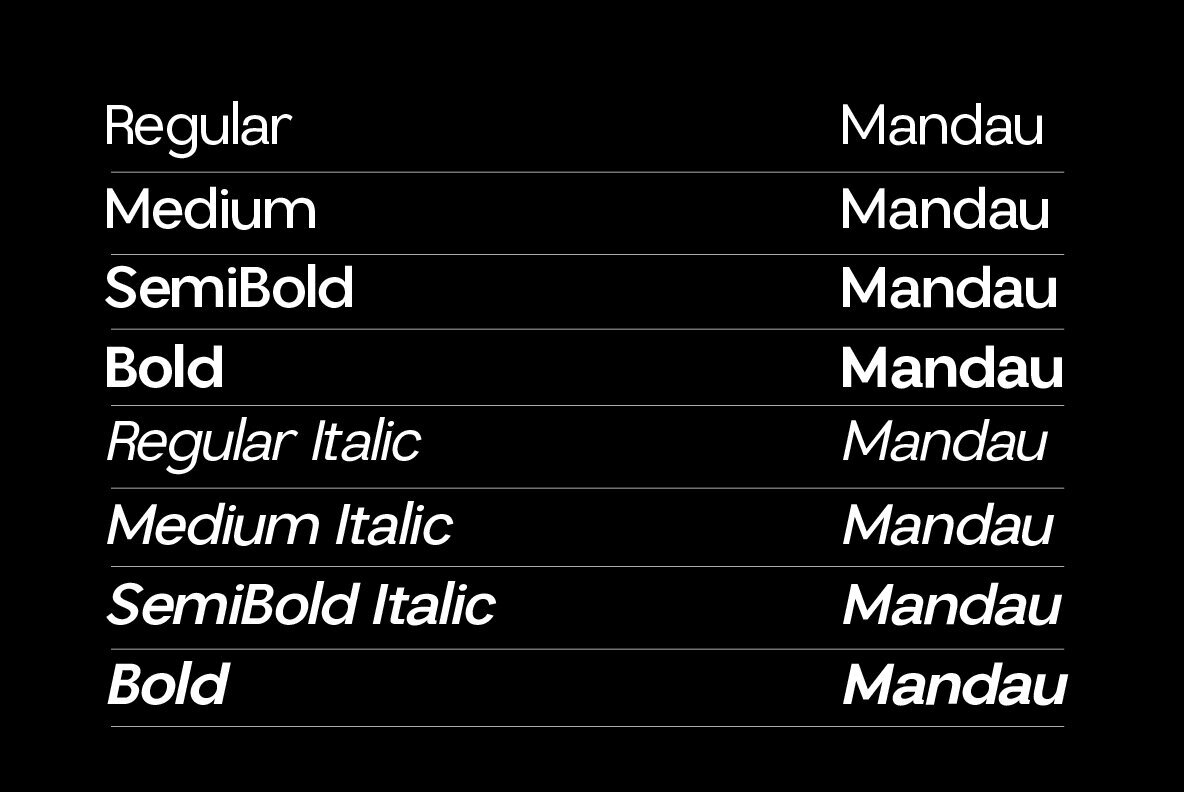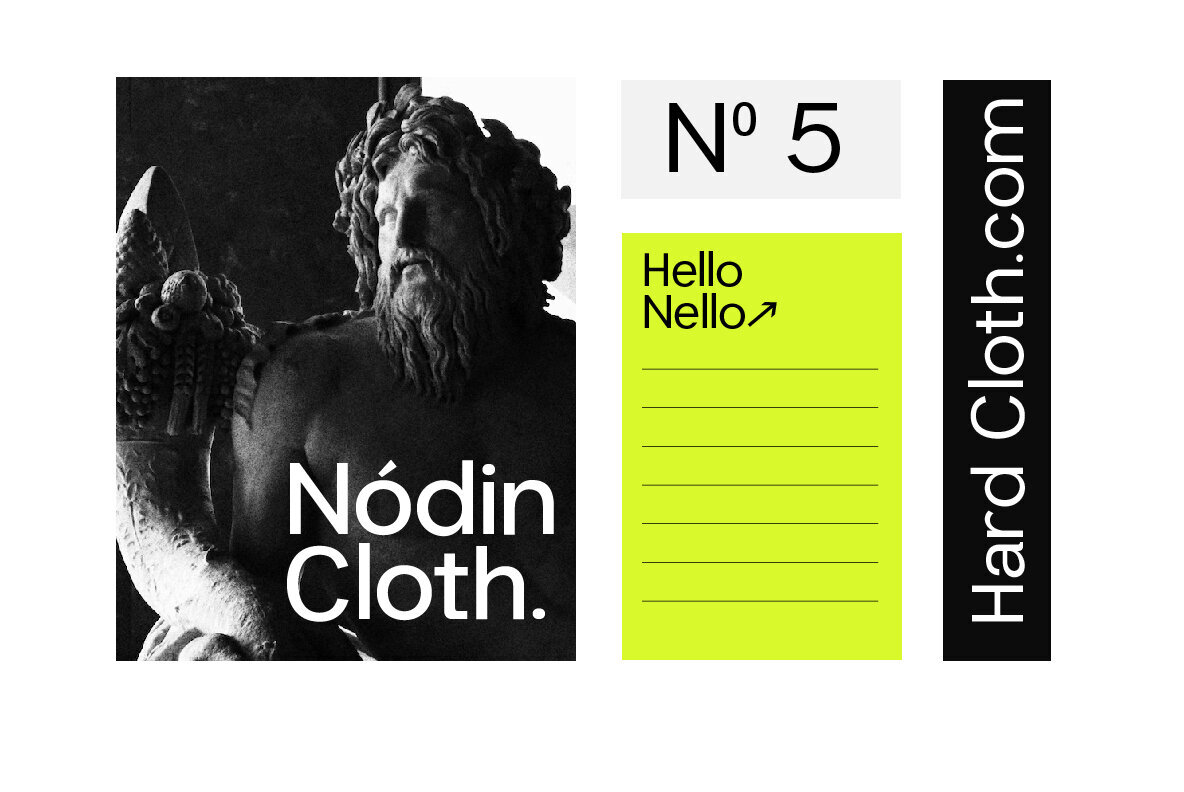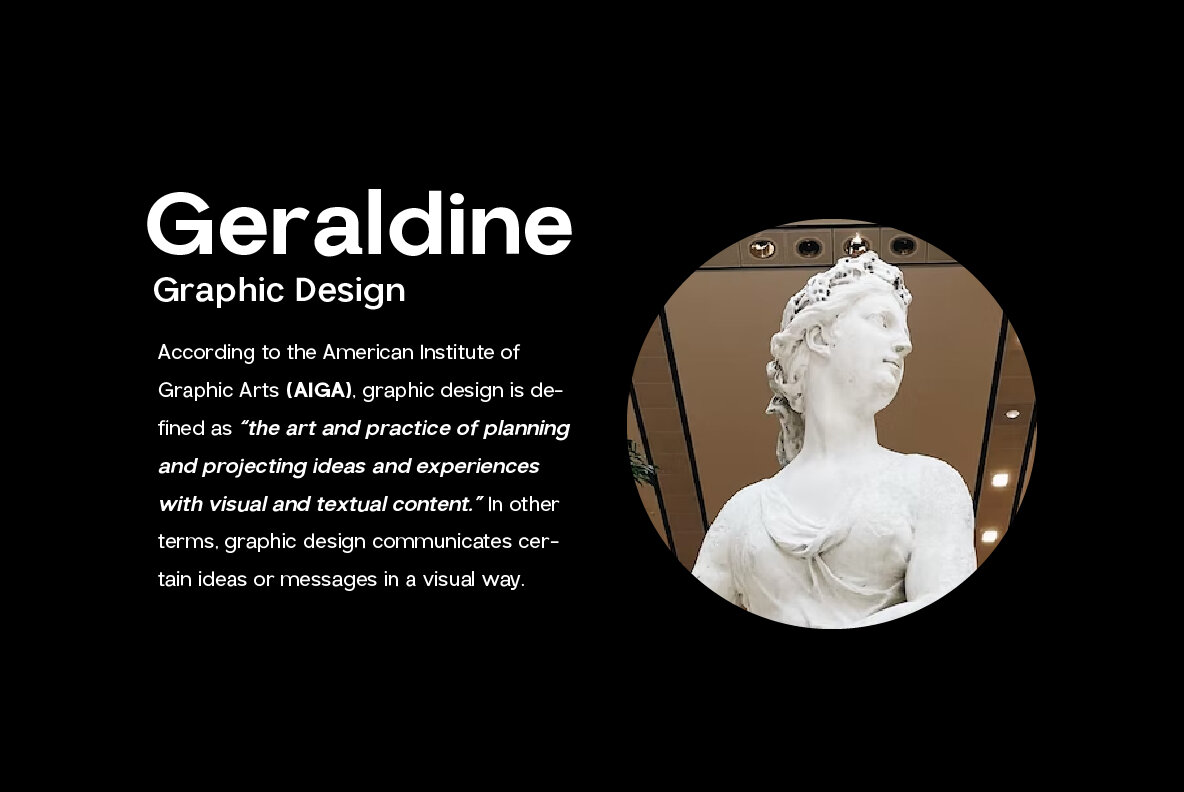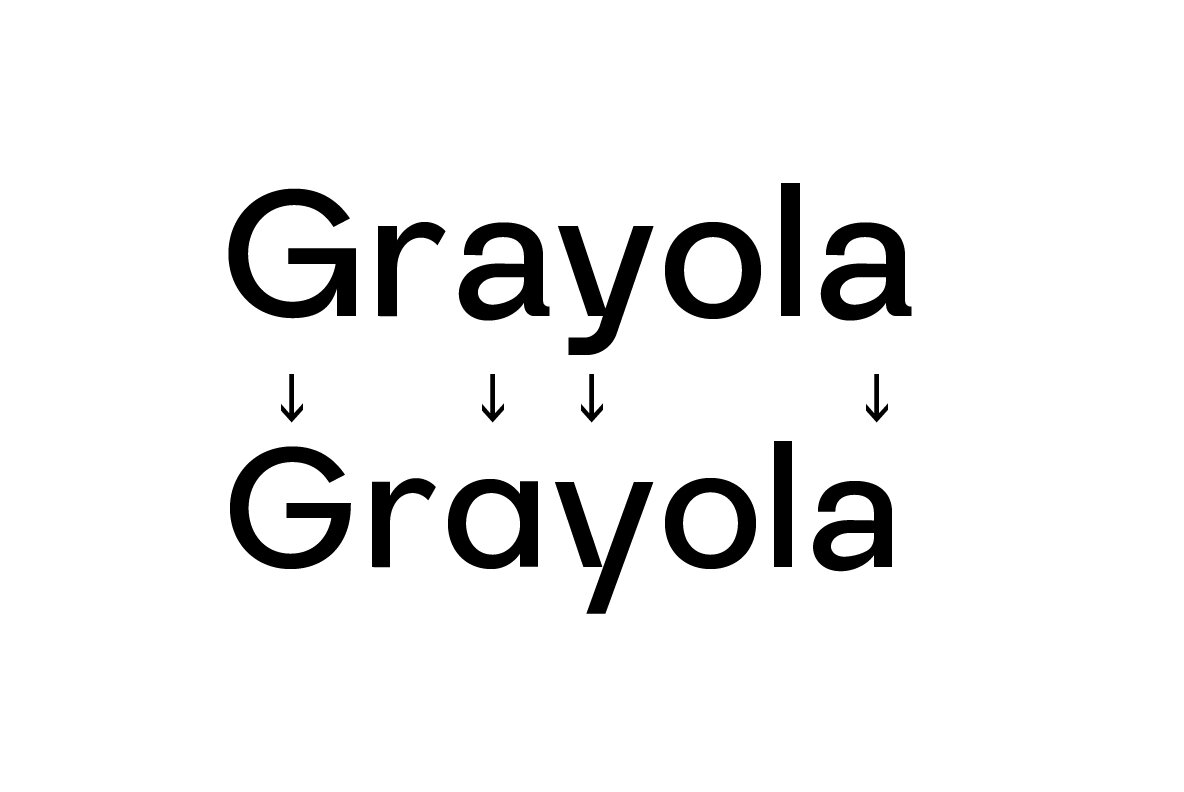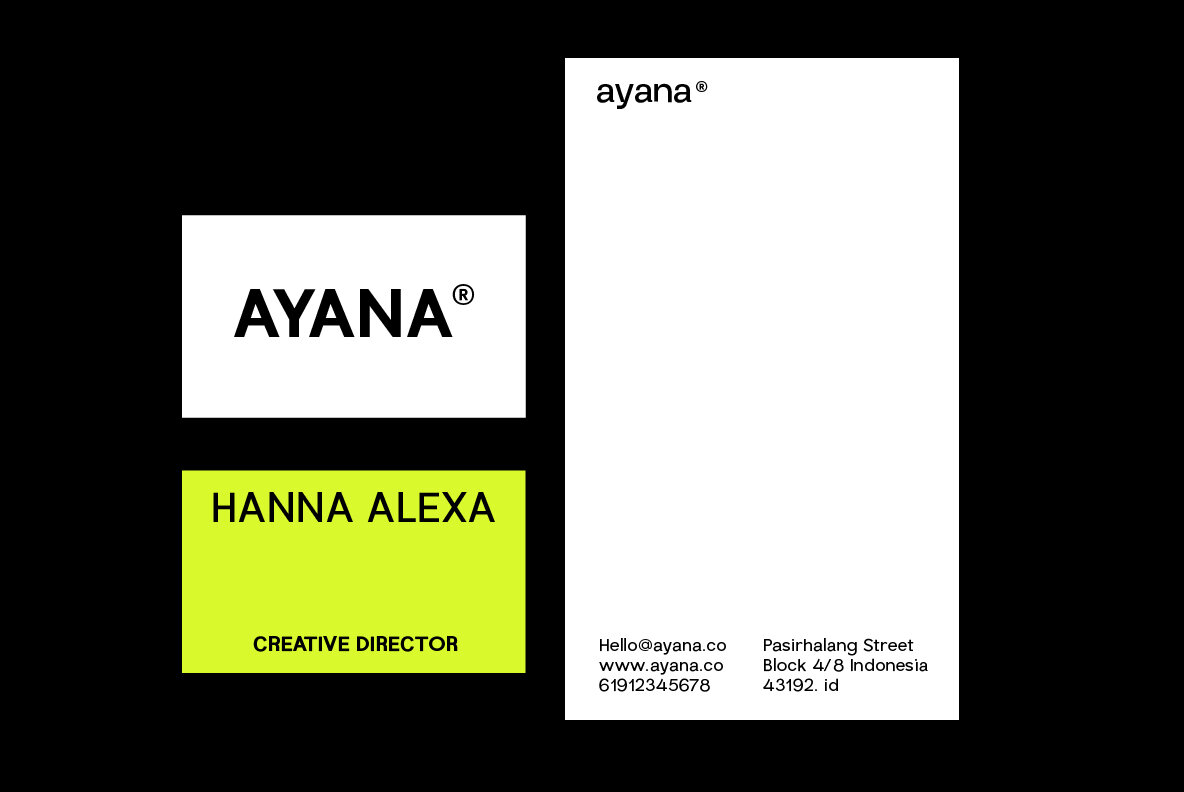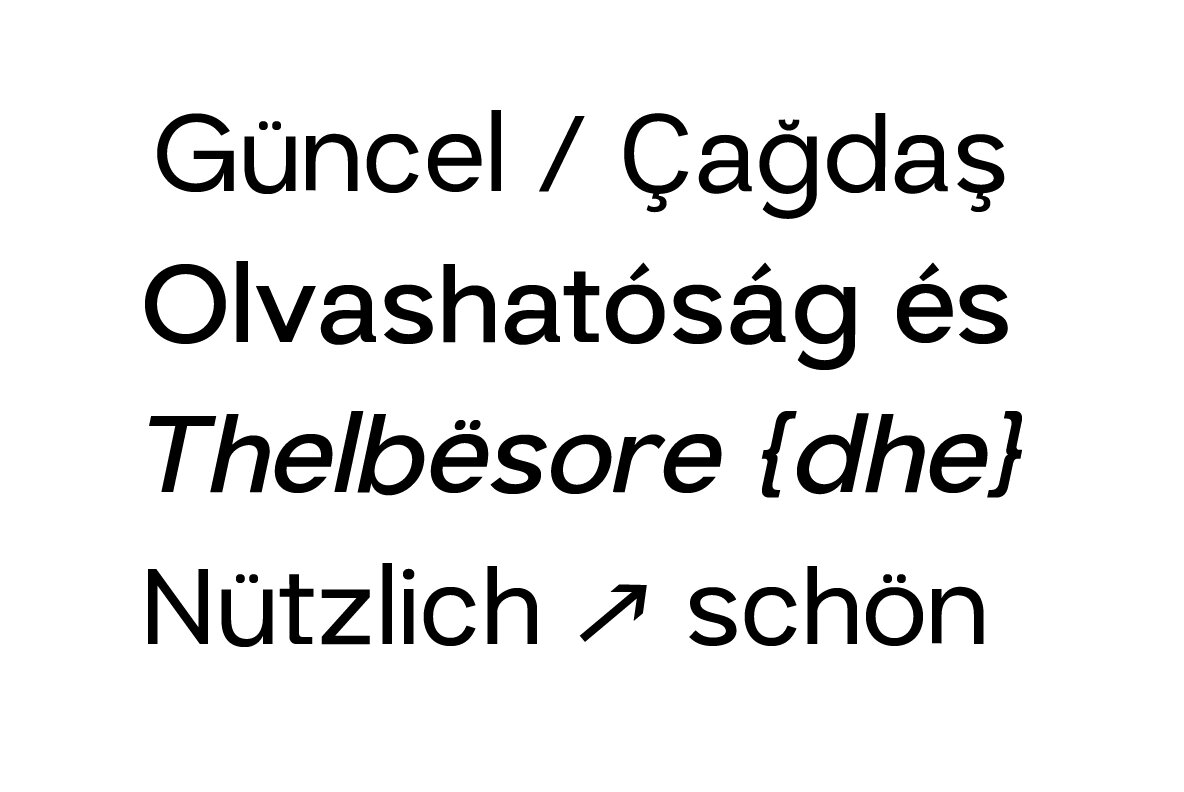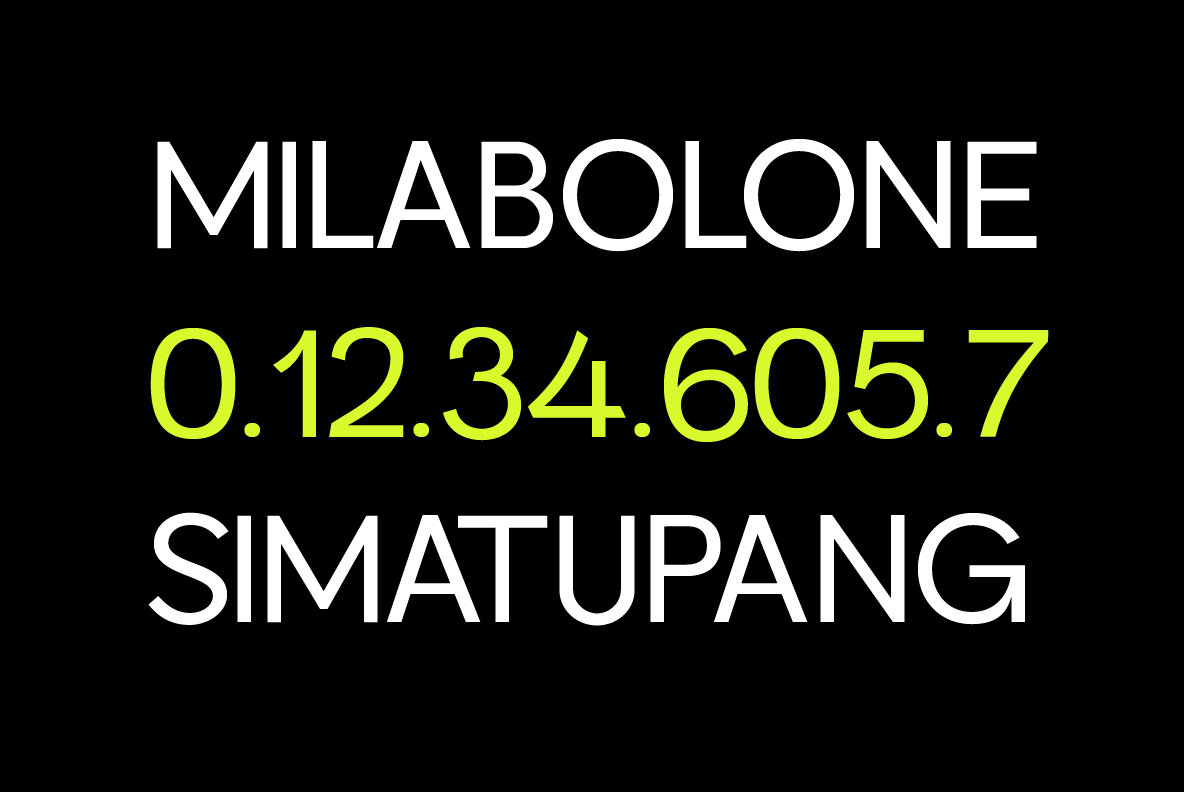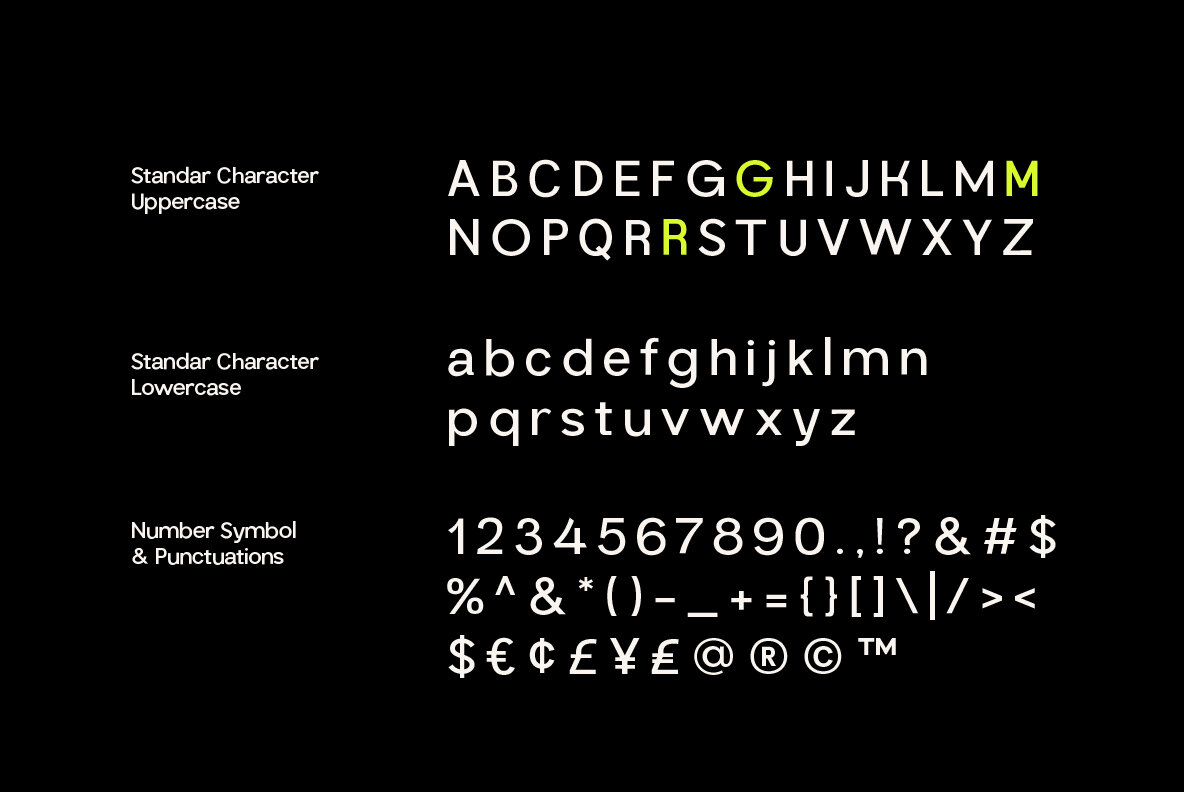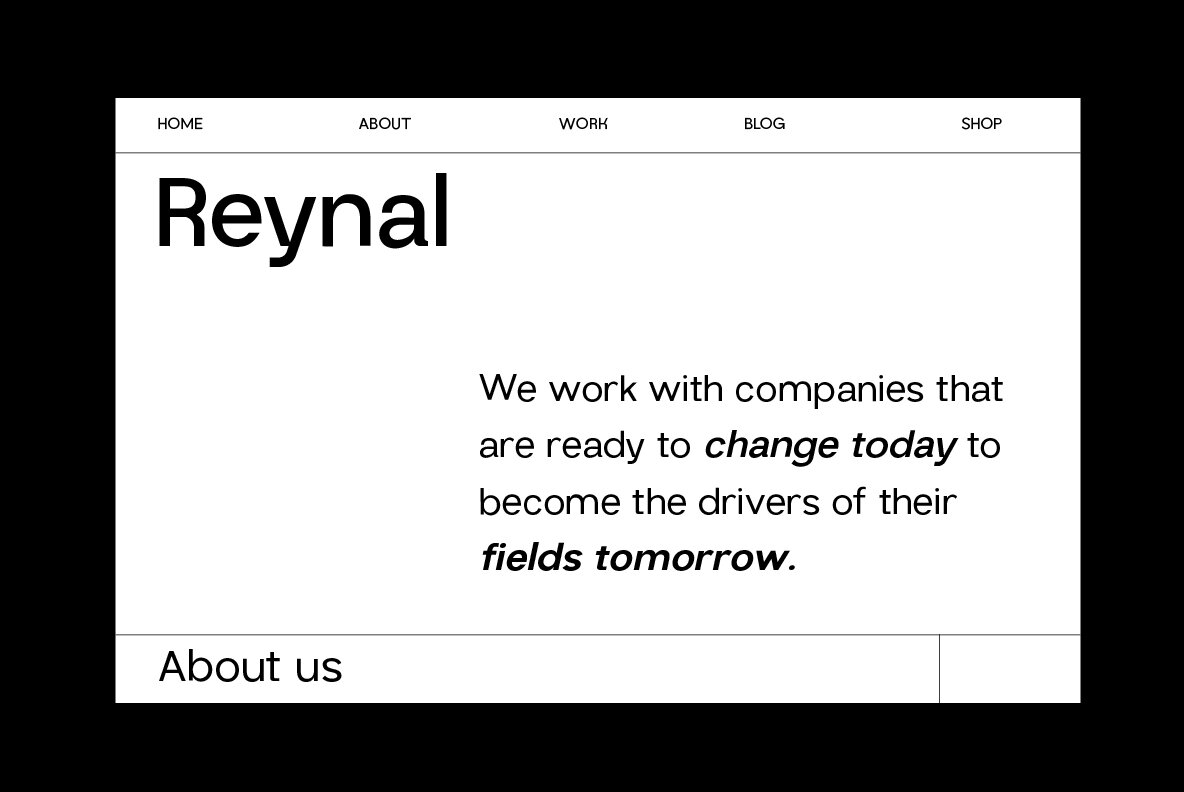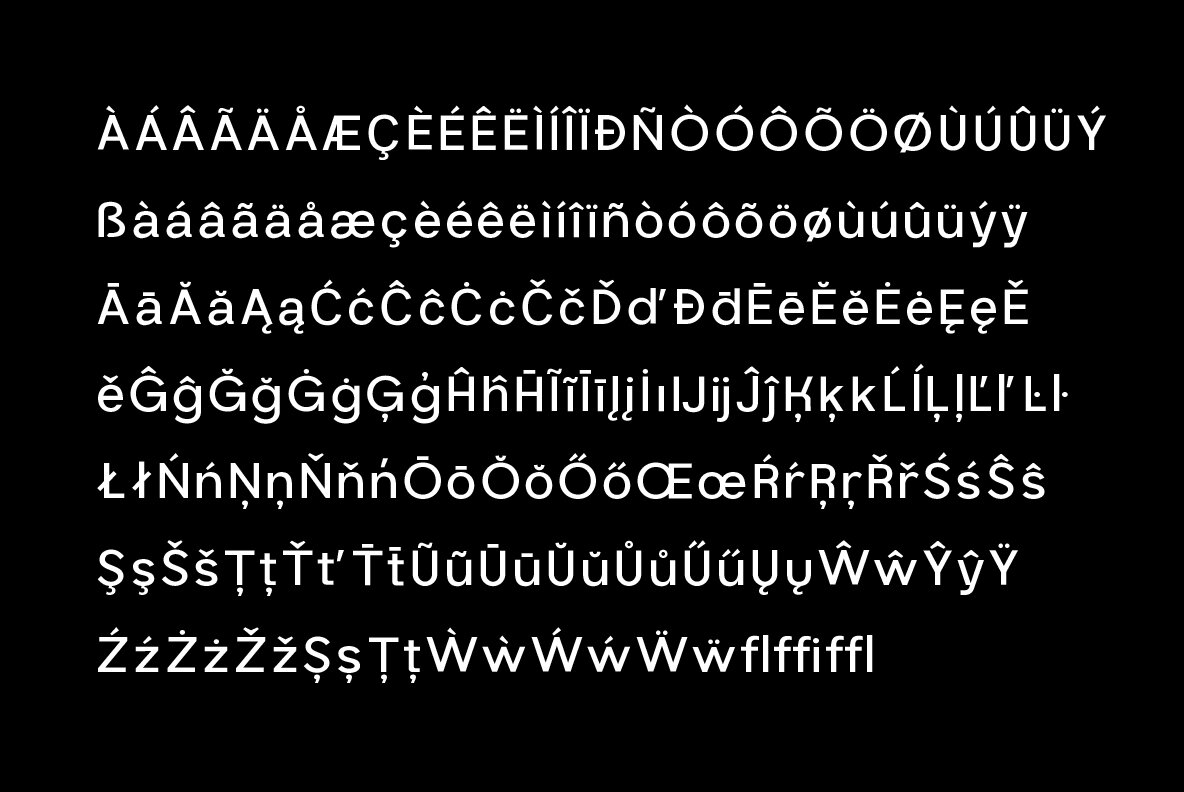
Mandau Font
Mandau Sans Serif Grotesk font is a typeface that has a modern and minimalist design. Inspired by typography styles that were popular in the 20th century, Mandau Sans Serif Grotesk has clean, bold lines, making it easy to read and perfect for a variety of graphic design purposes.
Mandau Sans Serif Grotesk has distinctive characteristics, such as firm thin lines and strong thick lines, as well as very geometric letter shapes. The color of this font tends to be monochromatic, so it is suitable for use in minimalist and modern designs.